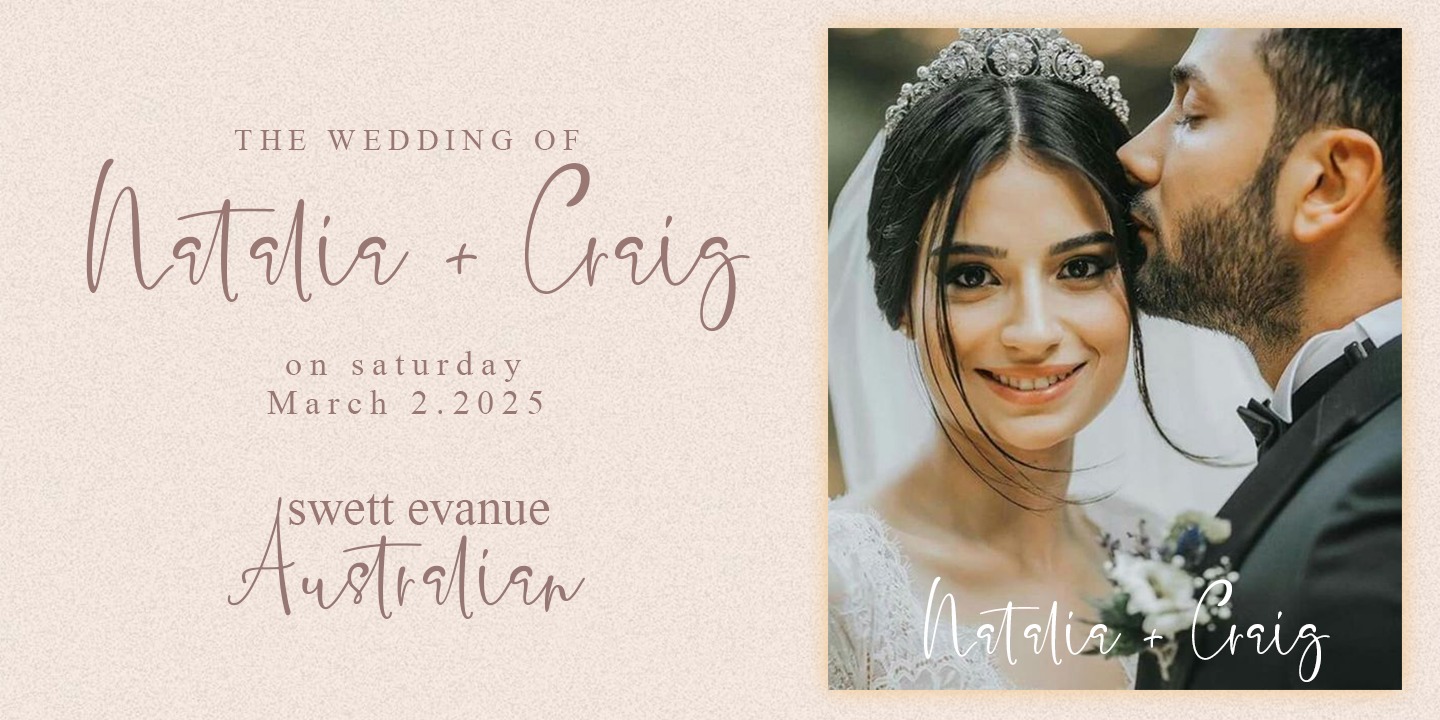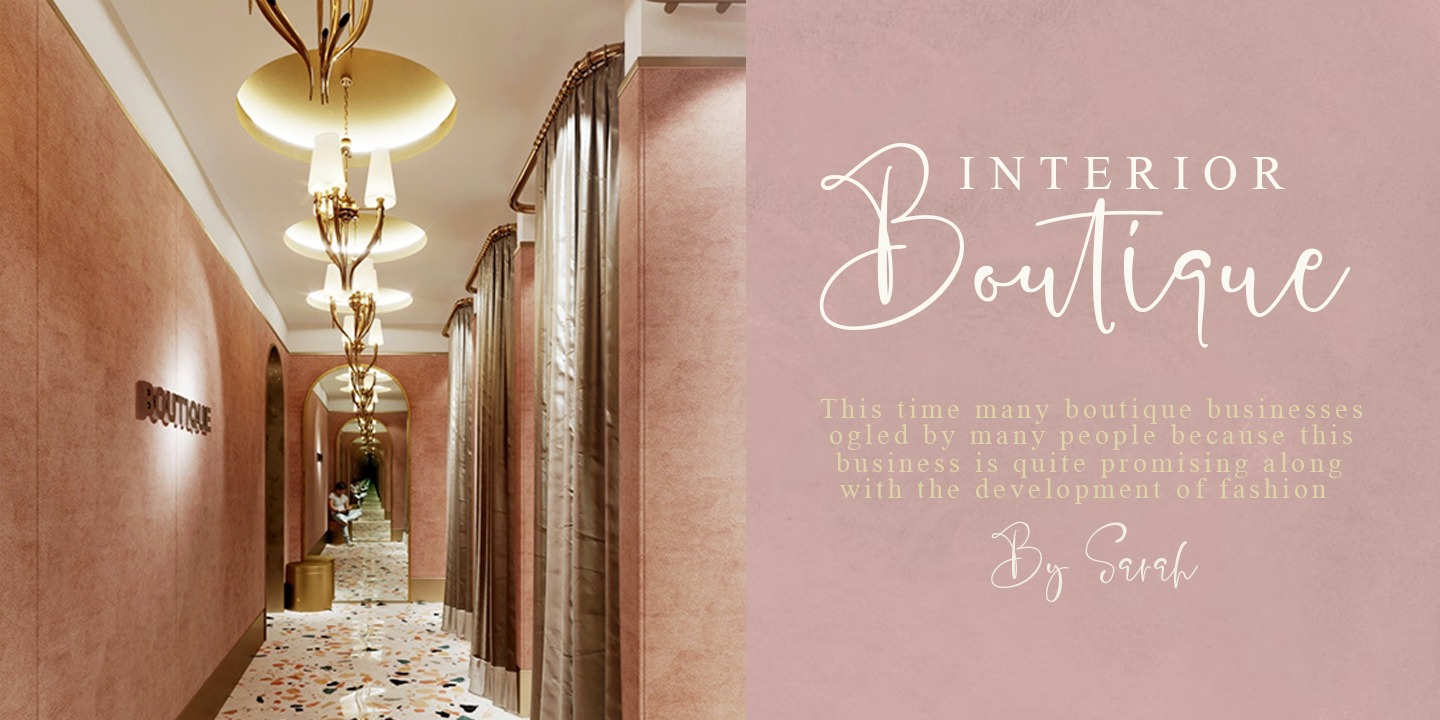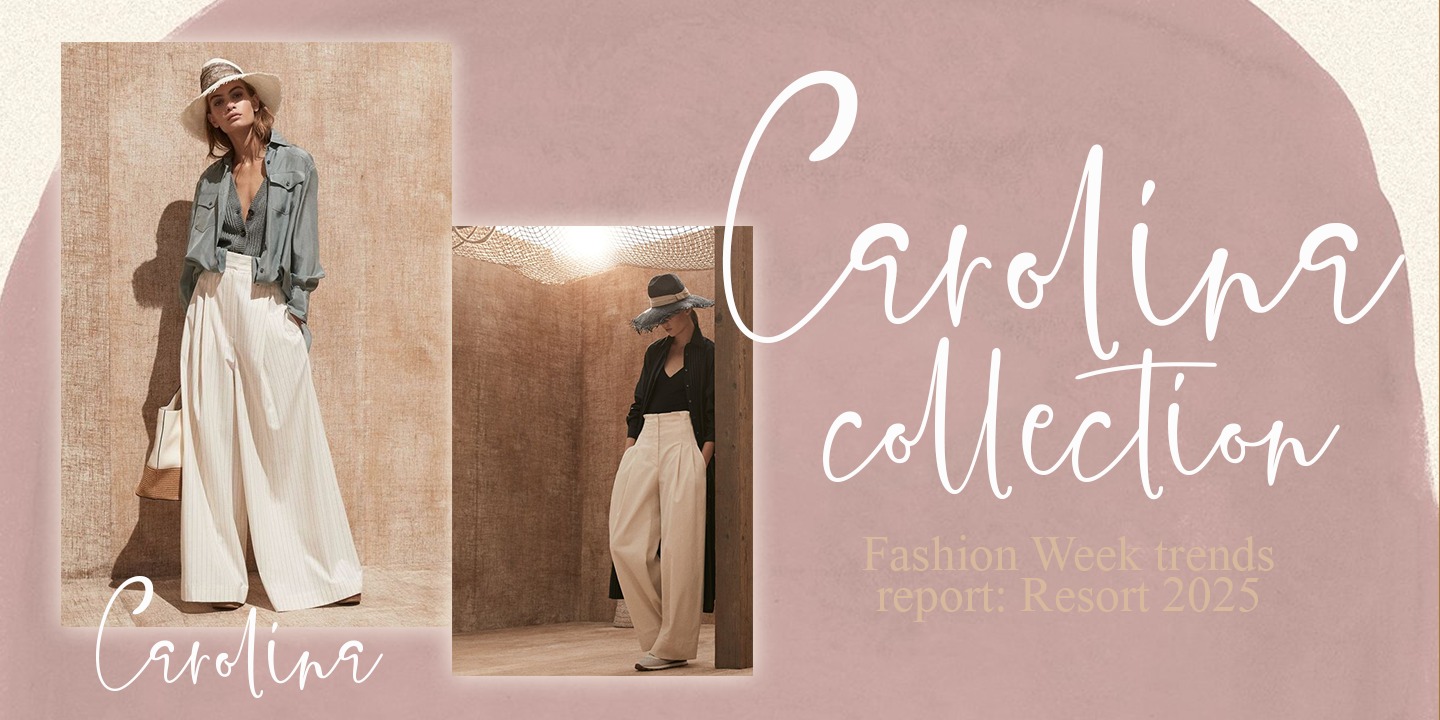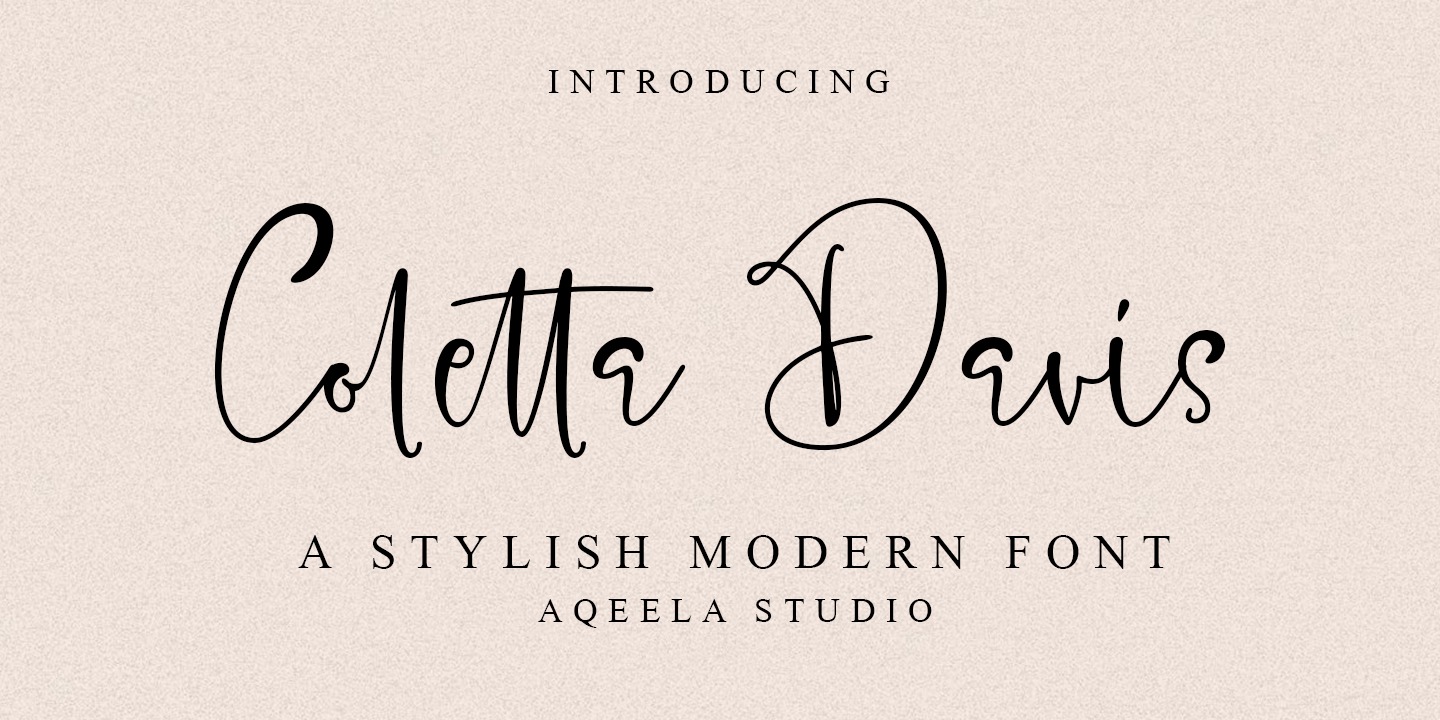
Coletta Davis Handwritten Font
This is a stylish, delicate, and flowing handwritten script typeface crafted & designed by Aqeela Studio. It has beautiful and well-balanced characters and as a result, it matches a wide pool of designs. This font is PUA encoded which means you can access all of the glyphs and swashes with ease!